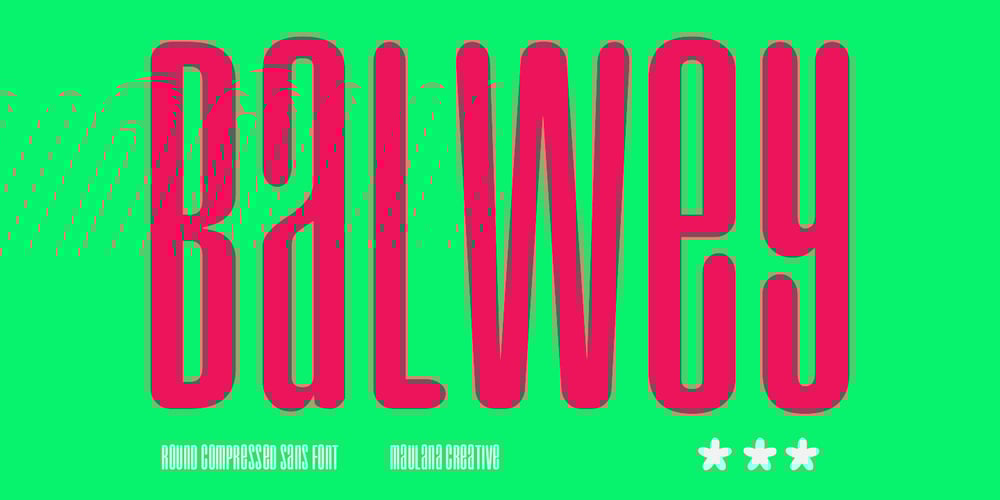
MC Balwey
MC Balwey font
MC Balwey Font Family was designed by Gilang Maulana and published by Maulana Creative. MC Balwey contains 1 styles and family package options. Balwey is a Compressed round sans serif Display font. Bold stroke, fun character with a bit of ligatures and alternates. To give you an extra creative work. Balwey font support multilingual more than 100+ language. This font is good for logo design, Social media, Movie Titles, Books Titles, a short text even a long text letter and good for your secondary text font with script or serif. Make a stunning work with Balwey font. Cheers, Maulana Creative